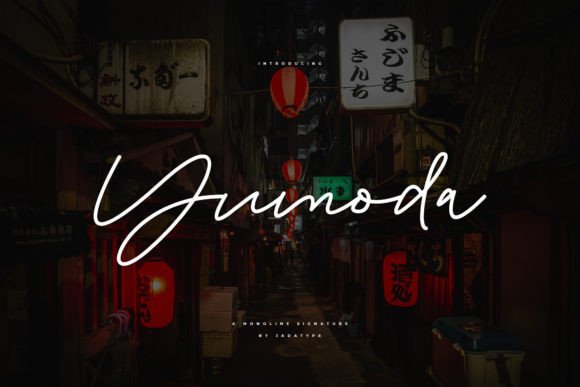
Introducing Yumoda Font, the ultimate solution for anyone looking to add a touch of elegance and sophistication to their designs. Whether you're a professional photographer, social media influencer, musician, or a business owner looking to brand your products, this font is the perfect choice for you.
Crafted by the expert designers at Jadatype, Yumoda Font boasts a stunning script monoline that is both stylish and modern. But that's not all; this font has also been optimized for various applications, making it a versatile choice for any project.
Looking to create stunning product labels or business cards that leave a lasting impression? Yumoda Font's unique and eye-catching design will help you stand out from the crowd and elevate your brand to new heights.
But Yumoda Font is not just about looks. It is also a highly functional font that offers maximum readability, ensuring that your message is conveyed loud and clear. Whether you're writing a blog post, creating a social media post, or designing a website, Yumoda Font's legibility will make sure that your content is easy to read and engaging.